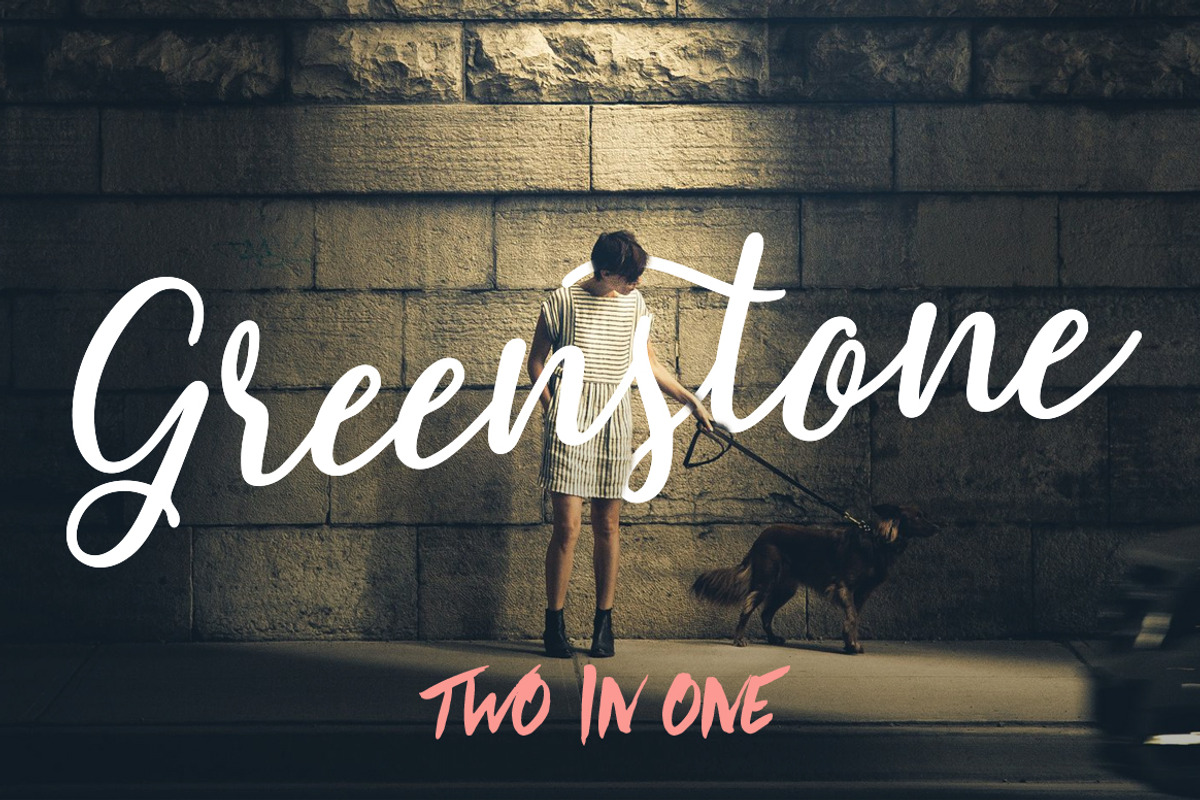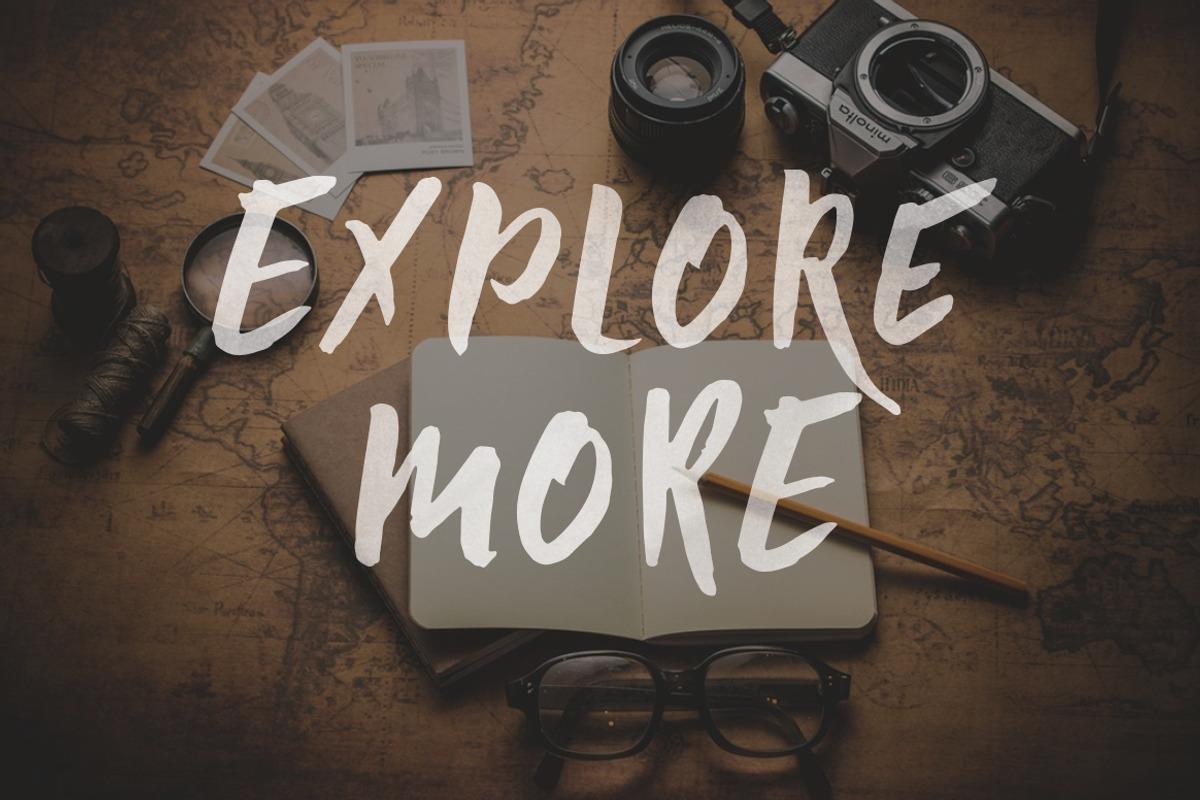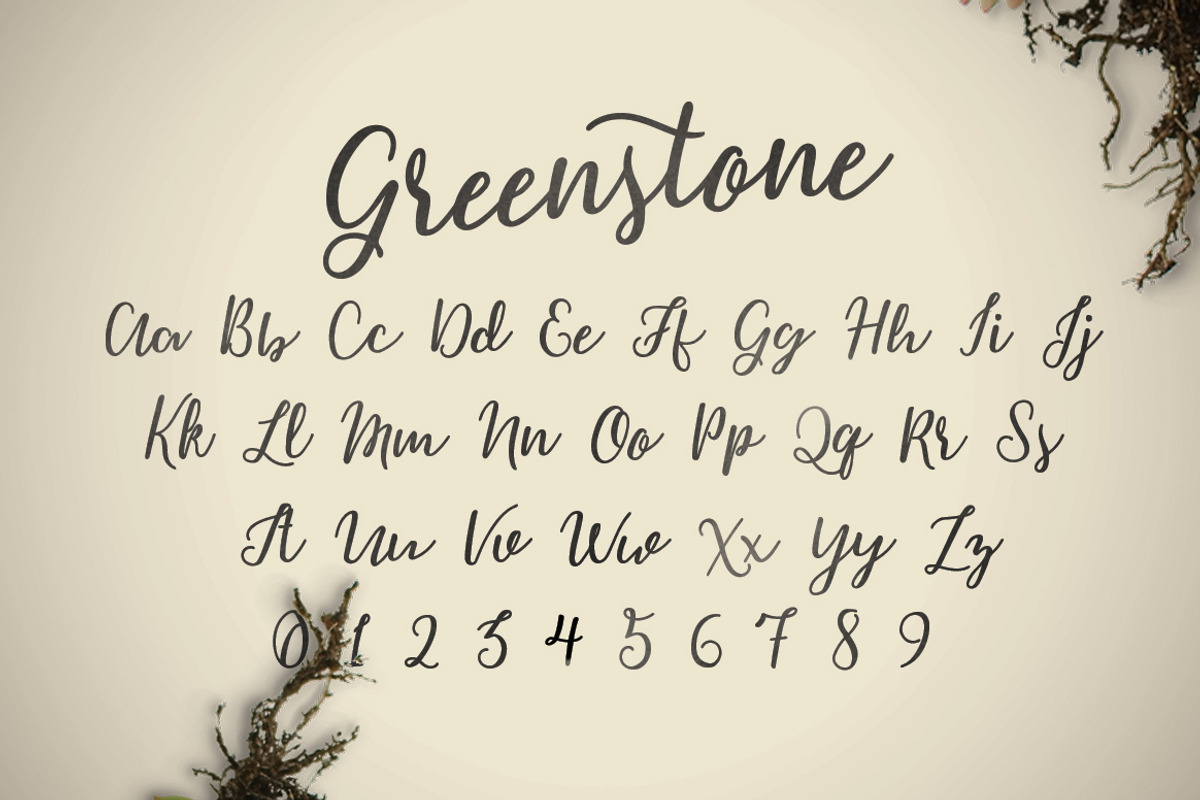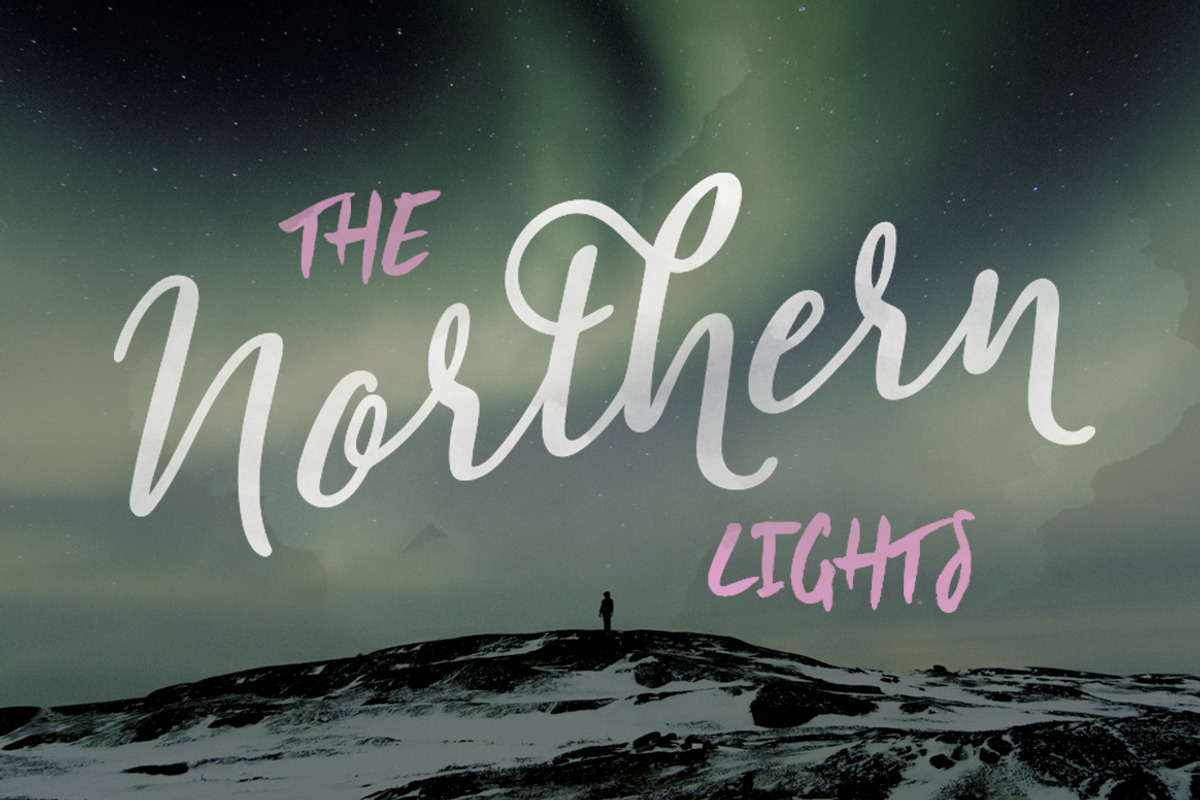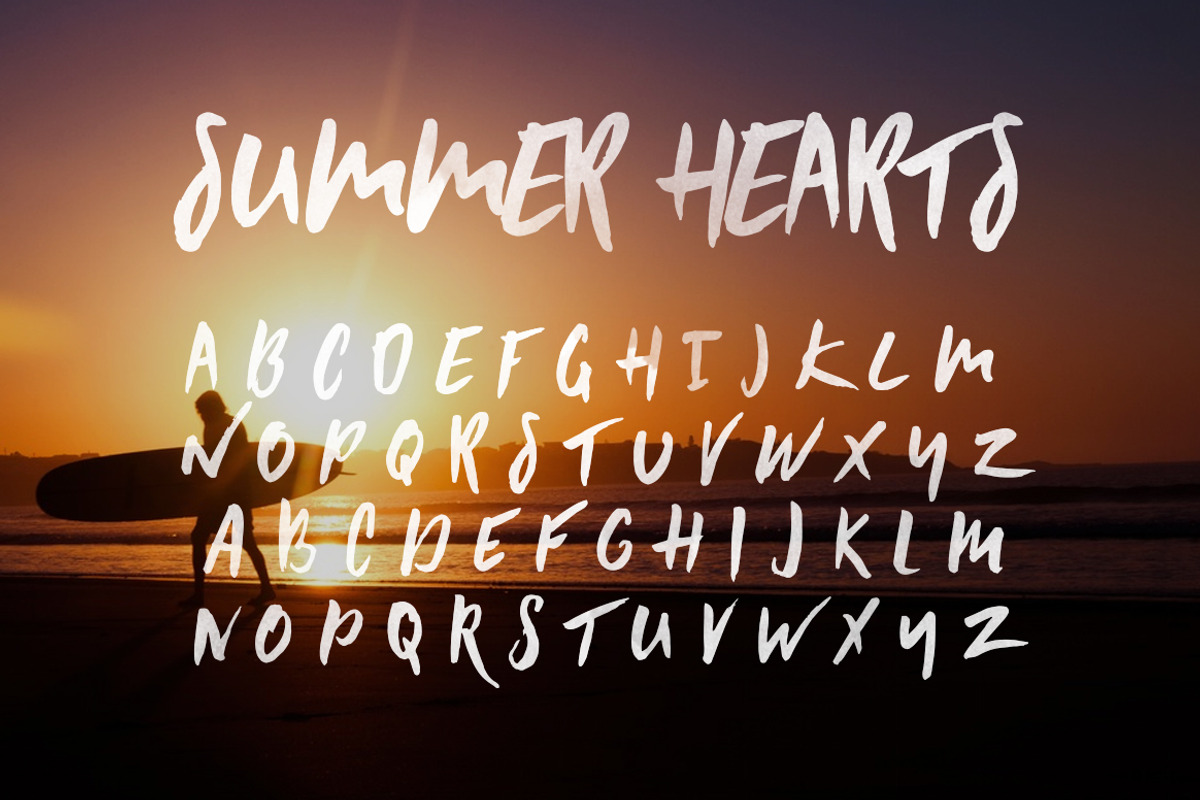
Greenstone Script (50% off)
Greenstone Script & Summer Hearts
Greenstone is a hand lettered typeface, completed with a mix of pens and brushes. I'm very happy with the way that it turned out! With Greenstone you get multiple alternate characters and ligatures as well as the Western European character set. It includes a Regular Version, Bold Version & Italic Counterparts.
Summer Hearts is a hand painted All-Caps brush typeface designed to be used with script typefaces or as a stand alone display typeface for Titling, Posters, Branding, Logo Design, Etc. I love the way it can fit into any style or mood, whether it's a Wedding Invitation or a Band T-Shirt, it fits many contexts without feeling out of place!